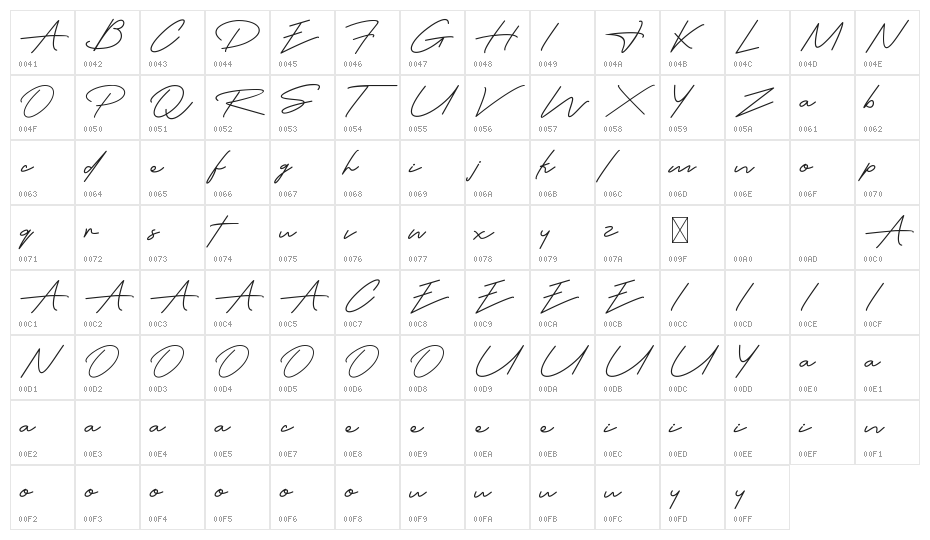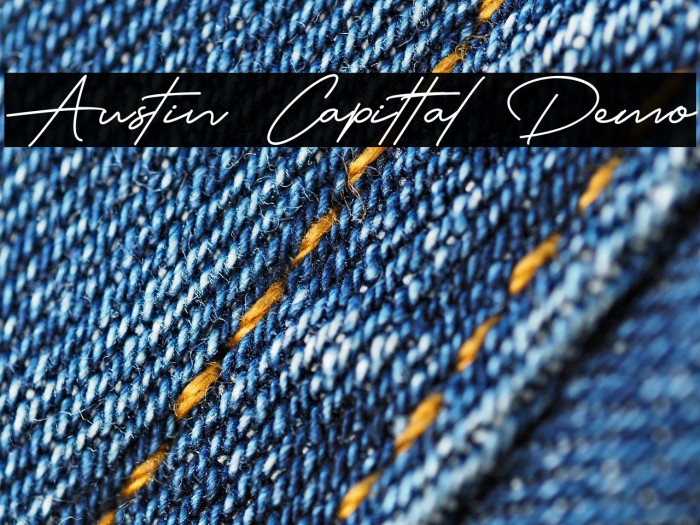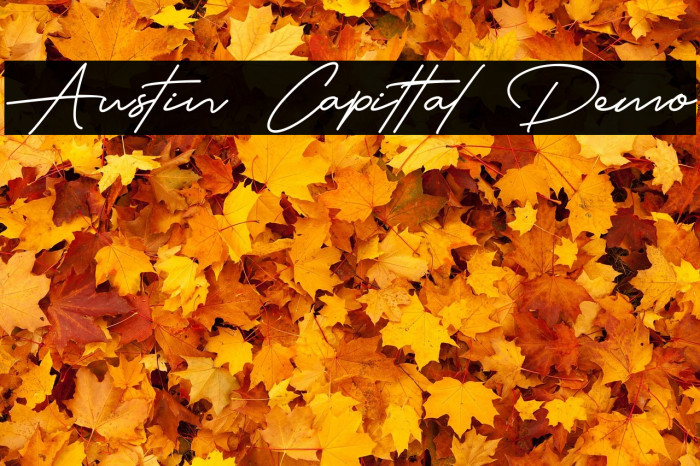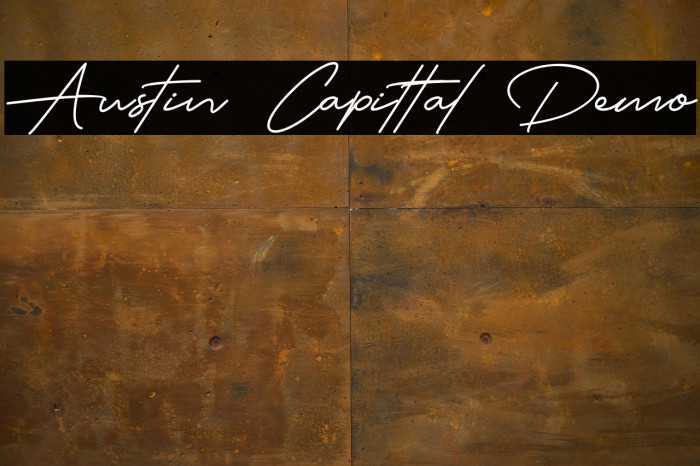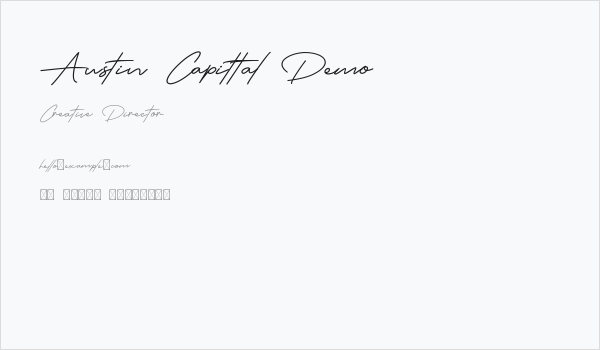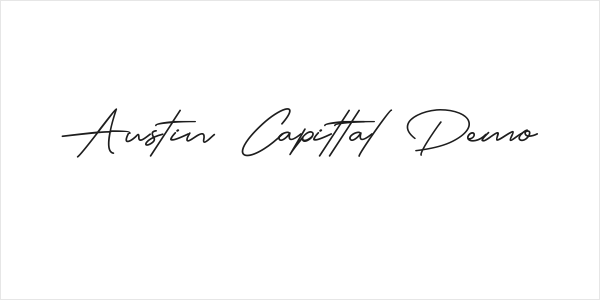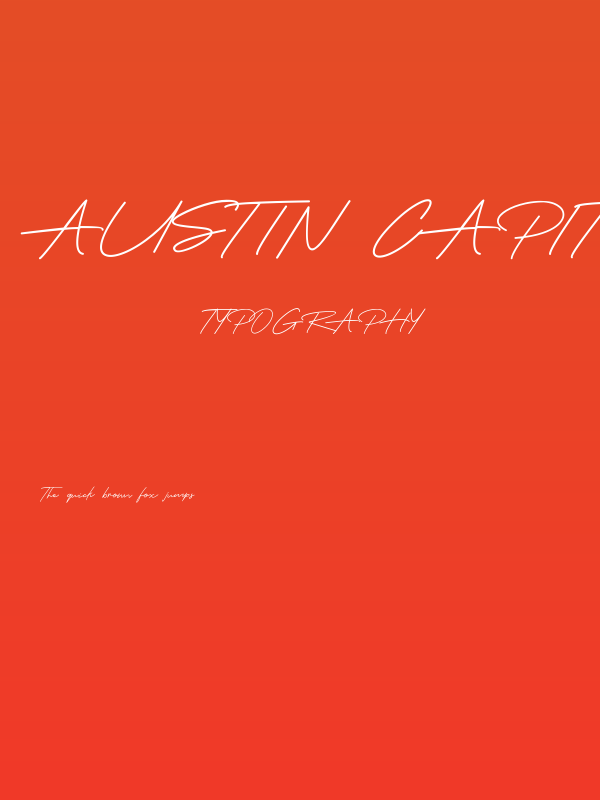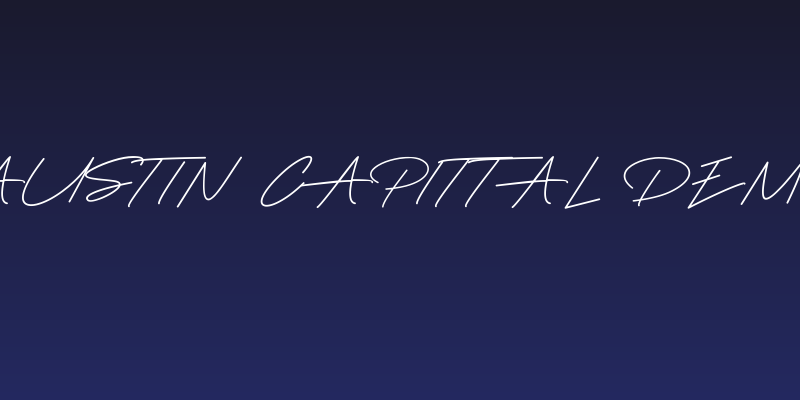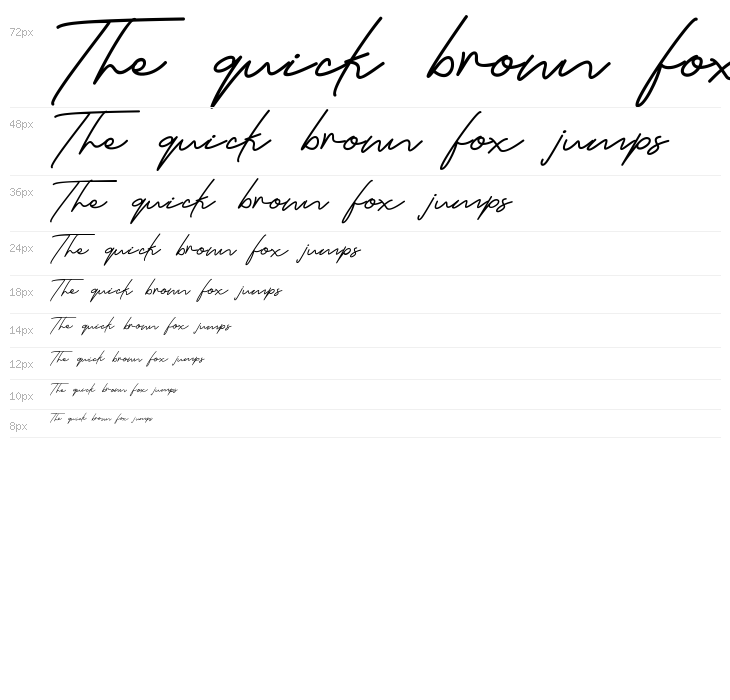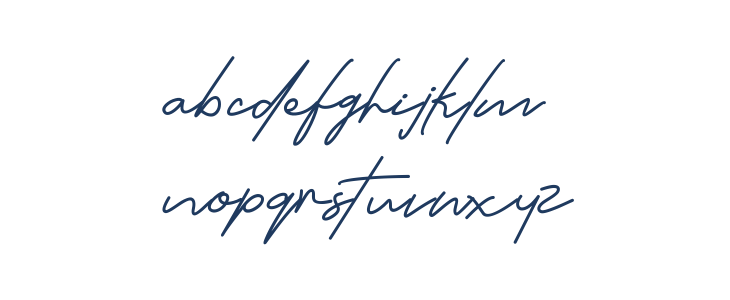
Austin Capittal Demo Font
Austin Capittal Demo Description
This font features a dynamic and fluid handwritten style, characterized by its elegant and flowing letterforms. The uppercase letters are elongated and slightly slanted, giving a sense of movement and sophistication. The lowercase letters maintain a consistent rhythm with smooth curves and connections, enhancing the script-like appearance. The overall design is both modern and timeless, making it versatile for various applications. The font's unique charm lies in its ability to convey a personal touch while maintaining readability.
| Proposed Projects | Ideal for wedding invitations, personal branding, greeting cards, and elegant packaging designs. |